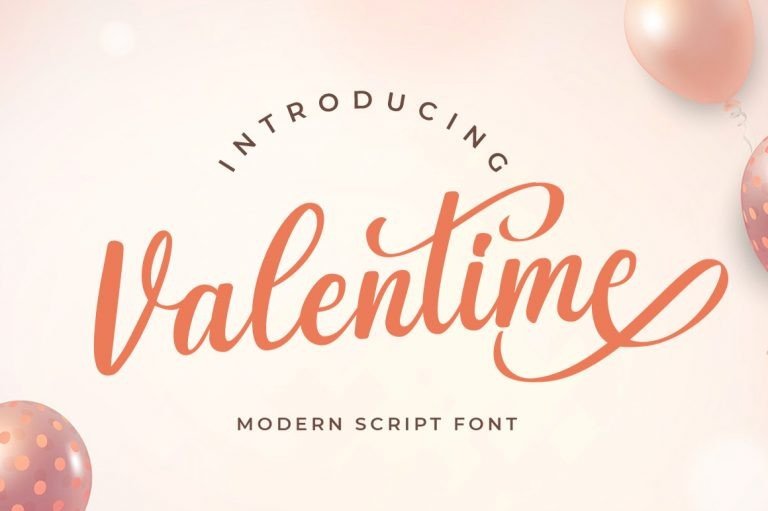
Valentime Font
Valentime Script Font is a Lovely script font created by Hugefonts with charming curly love swashes, designed to easily represent the beauty and fun personality at the same time, perfect for any project you’re working on.
This enchanting font will turn any creative idea into a true standout. Perfect fit for all of your logos, branding, social media, etc.